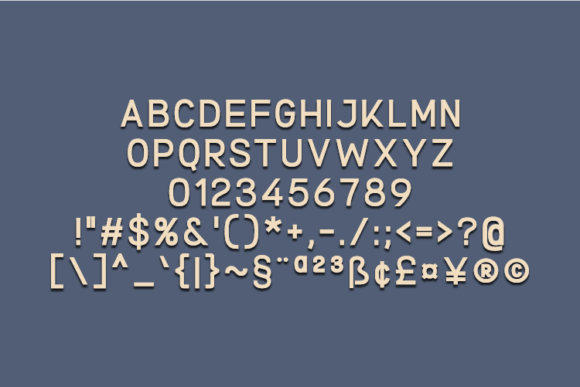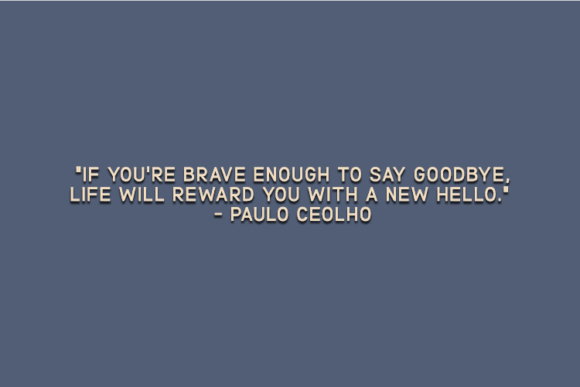
Discover the Elegance of Charlotte Font: Elevate Your Designs with this Stunning Sans Serif
Are you on the hunt for a font that can effortlessly elevate your design projects? Look no further than the Charlotte font, a beautiful sans serif typeface that is perfect for adding a touch of sophistication to any creative endeavor. In this article, we’ll dive into the world of Charlotte font, exploring its features, uses, and benefits, and why it’s a must-have for designers and crafters alike.
What is Charlotte Font?
Charlotte is a gorgeous sans serif font that boasts a clean, modern aesthetic, making it an excellent choice for a wide range of design applications. Its sleek lines, balanced proportions, and elegant feel make it perfect for creating stunning headings, gorgeous invitations, and beautiful logos. Whether you’re working on a branding project, crafting a wedding invitation, or designing a save-the-date card, Charlotte font is sure to impress.
Key Features of Charlotte Font
- Versatile: Charlotte font is incredibly versatile, making it suitable for a wide range of design projects, from displays and headers to invitations and logos.
- Modern Aesthetic: Its clean, sans serif design gives it a fresh, modern look that’s perfect for contemporary designs.
- Elegant Feel: Charlotte font exudes elegance, making it an excellent choice for designs that require a touch of sophistication.
- Easy to Read: Its clear, balanced proportions ensure that the font is easy to read, even at smaller sizes.
Uses of Charlotte Font
Charlotte font is perfect for a variety of design applications, including:
- Headings and Titles: Use Charlotte font to create stunning headings and titles that grab attention and add a touch of elegance to your designs.
- Invitations: Whether it’s a wedding invitation, save-the-date card, or birthday party invite, Charlotte font is perfect for creating beautiful, eye-catching invitations.
- Logos: Charlotte font’s modern aesthetic and elegant feel make it an excellent choice for logo design, helping to create a strong brand identity.
- Displays and Headers: Use Charlotte font to create stunning displays and headers that add a touch of sophistication to your designs.
- Weddings: Charlotte font is perfect for wedding designs, including wedding invitations, programs, and place cards.
Benefits of Using Charlotte Font
So, why should you choose Charlotte font for your design projects? Here are just a few benefits:
- Instant Elegance: Charlotte font adds an instant touch of elegance to any design, helping to elevate your creative projects.
- Versatility: Its versatility means you can use Charlotte font across a wide range of design applications, from logos to invitations.
- Easy to Use: Charlotte font is easy to use and pairs well with a variety of other fonts, making it simple to incorporate into your designs.
- High-Quality: Charlotte font is a high-quality typeface, ensuring that your designs look professional and polished.
Tips for Using Charlotte Font
To get the most out of Charlotte font, here are a few tips:
- Pair with Other Fonts: Experiment with pairing Charlotte font with other fonts to create a unique and eye-catching design.
- Use for Headings: Use Charlotte font for headings and titles to add a touch of elegance to your designs.
- Experiment with Sizes: Don’t be afraid to experiment with different sizes to find the perfect fit for your design.
In conclusion, Charlotte font is a stunning sans serif typeface that is perfect for designers and crafters looking to add a touch of elegance to their creative projects. Its versatility, modern aesthetic, and elegant feel make it an excellent choice for a wide range of design applications. Whether you’re working on a branding project, crafting a wedding invitation, or designing a logo, Charlotte font is sure to impress.